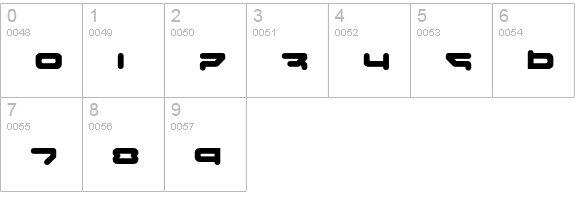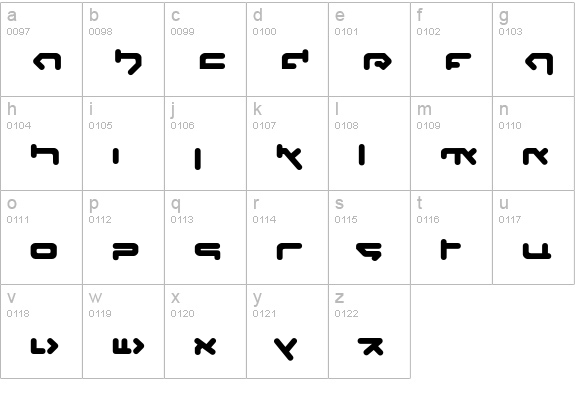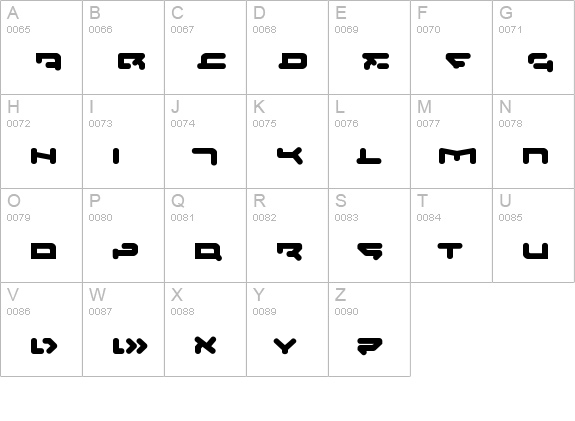
The CQN-Molecular-Xtra font is a modern and sleek typeface designed for a variety of creative projects. With its clean lines and futuristic feel, this font is perfect for adding a touch of sophistication to any design. Whether you're working on a branding project, poster design, or website layout, CQN-Molecular-Xtra will make your text stand out. This font features a full set of uppercase and lowercase letters, numbers, and punctuation marks, making it versatile for any project. Its unique and eye-catching style is sure to captivate your audience and leave a lasting impression. Best of all, CQN-Molecular-Xtra is available for free download at FontsMarket.com. So don't wait any longer - bring your designs to life with this stunning font today!